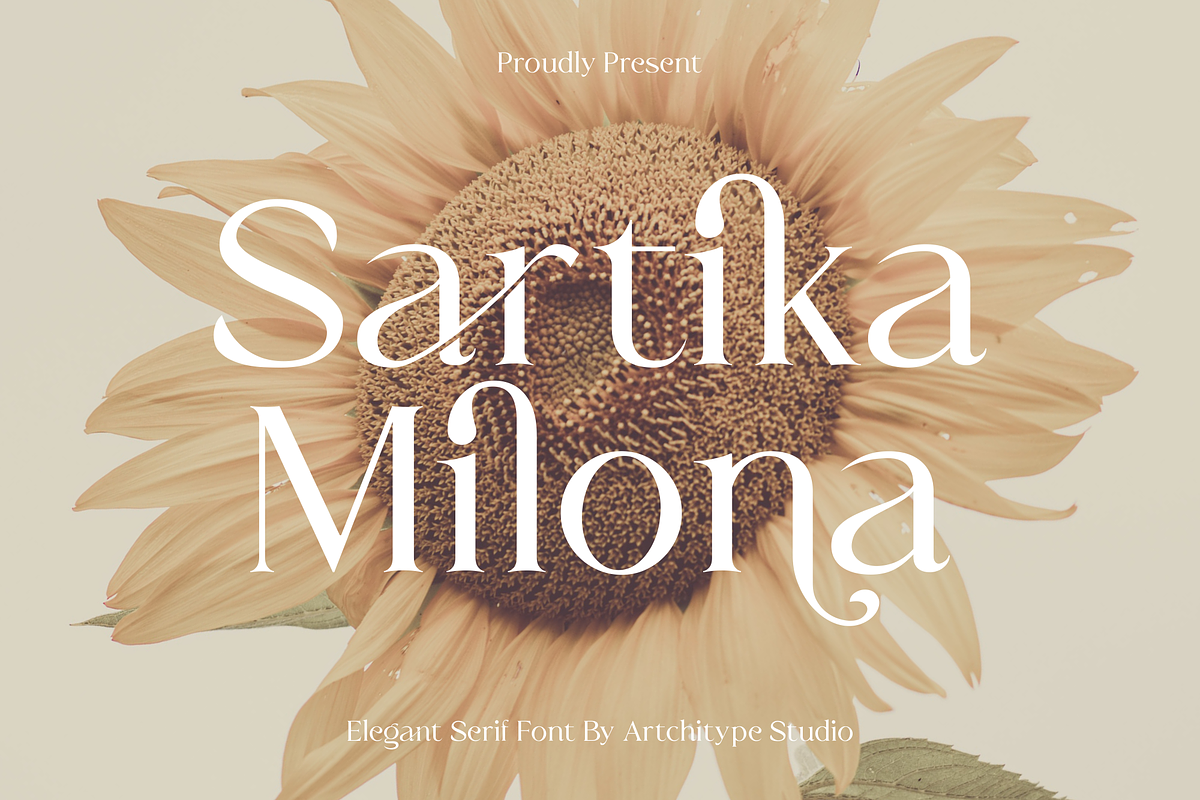
Sartika Milona - Elegant Serif Font Free Download
Sartika Milona – Elegant Serif Font Free Download
You must purchase this font for commercial use. However, you can download Sartika Milona – Elegant Serif Font Free Download for testing purposes. Sartika Milona is a refined and sophisticated serif font that embodies elegance and class. Perfect for high-end branding, luxury invitations, editorial designs, fashion logos, and upscale marketing materials, this font adds a touch of timeless sophistication to any project.
With its beautifully crafted serifs, balanced letterforms, and delicate curves, Sartika Milona exudes professionalism while maintaining an approachable, elegant aesthetic. Whether you're creating a chic logo, designing a premium product label, or working on an editorial layout, Sartika Milona – Elegant Serif Font Free Download offers versatility and style.